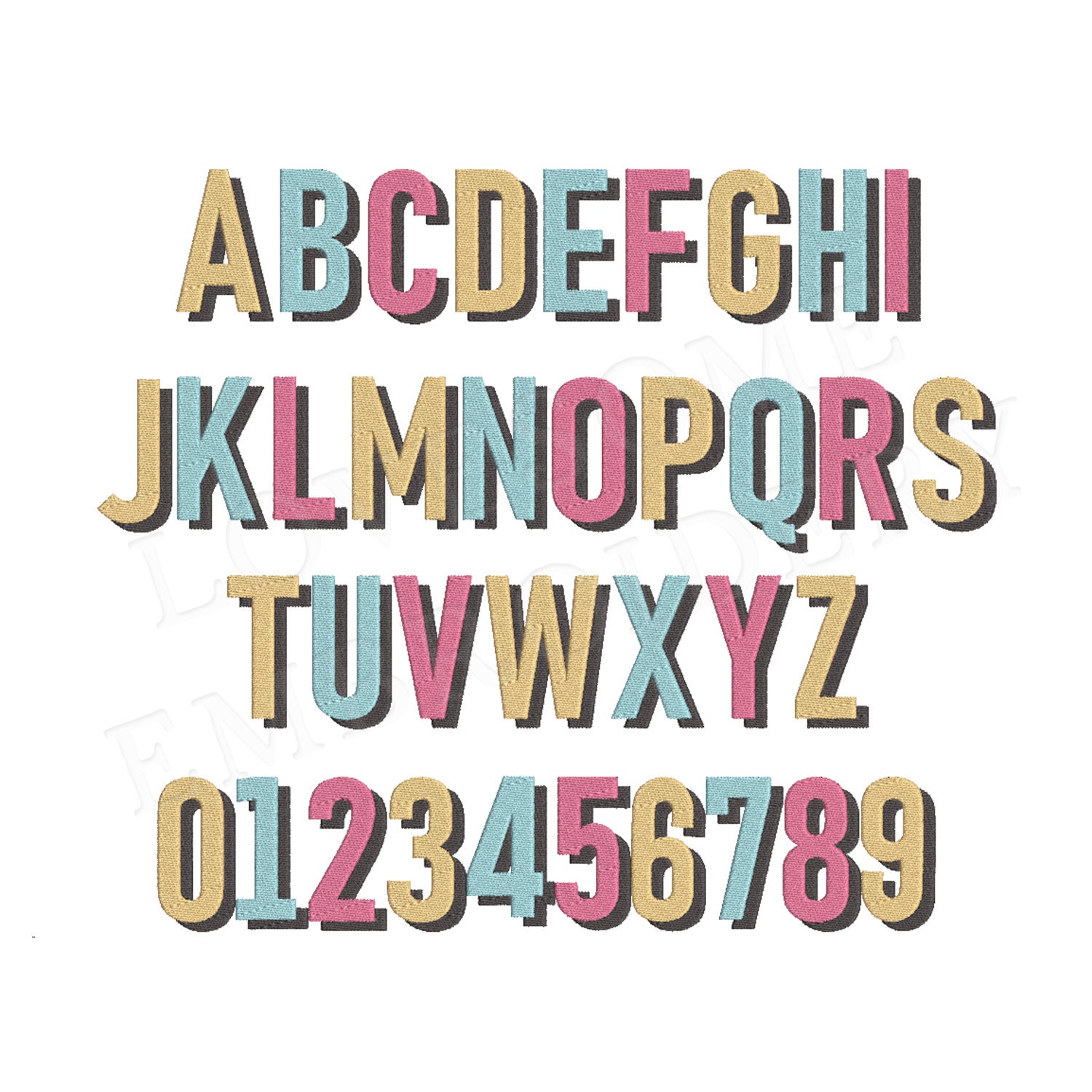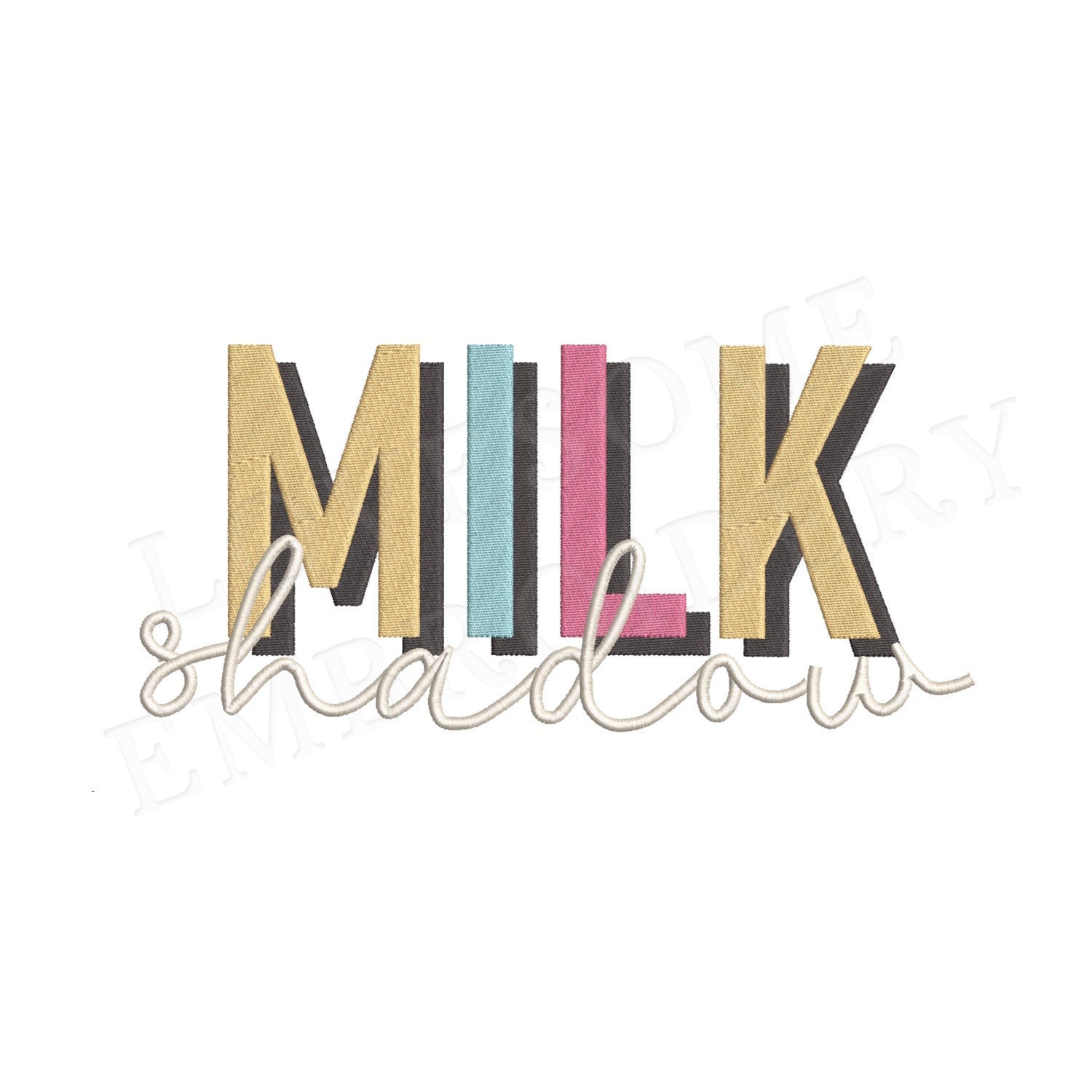
Milk Shadow Monogram 5inch BX Font A-Z Machine Embroidery Font Digital Download | Lovesome Design
This listing features a machine embroidery font set which includes embroidery files of shadow 26 uppercase letters A-Z and numbers 0-9 in 5inch size. (For the whole set, pls see the listing images.)
This machine embroidery alphabet set is for 5x7 embroidery hoops. Great for customizing and monogramming. Either you are a DIYer or a small business owner, our embroidery fonts are perfect for your projects with its all colorful details.